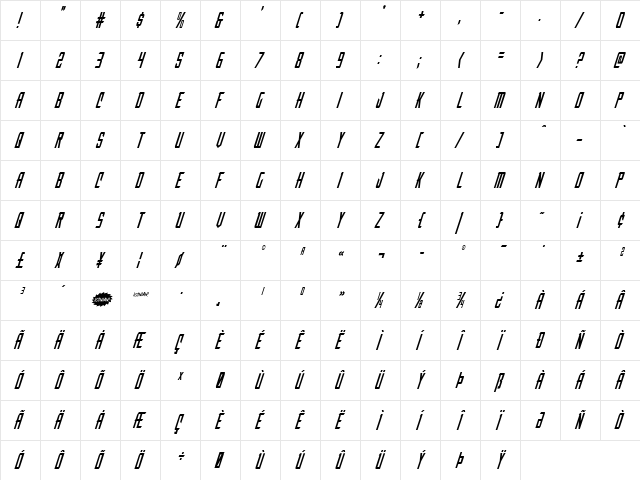
Nemesis Enforcer Condensed Italic Font Preview
Design Context for Nemesis Enforcer Condensed Italic Typeface
Nemesis Enforcer Condensed Italic brings high-energy athletic personality to the page — its confident, muscular forms are built for impact. Its italic angle brings a sense of urgency and motion to the letterforms. Its narrow stance lets it pack a punch even in space-constrained designs.
A natural choice for gym brands, fantasy sports, jersey lettering, and action-driven headlines.
Pro Tip: Use Nemesis Enforcer Condensed Italic in all-caps headlines where its athletic energy can fully express itself. Pair with a solid, simple sans for supporting text.